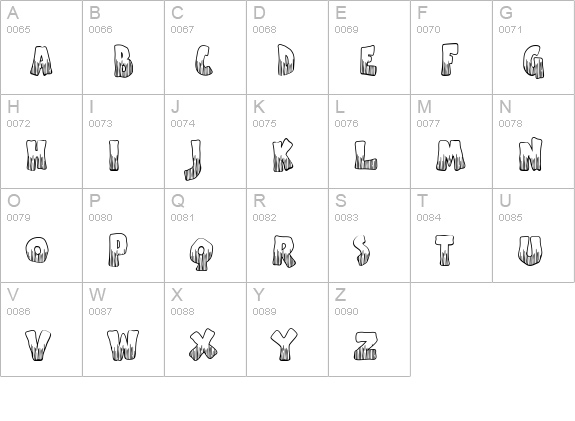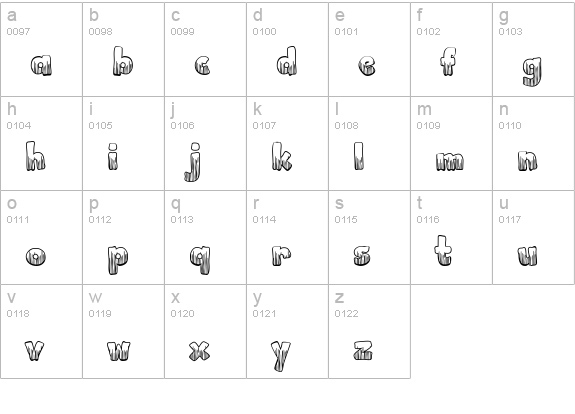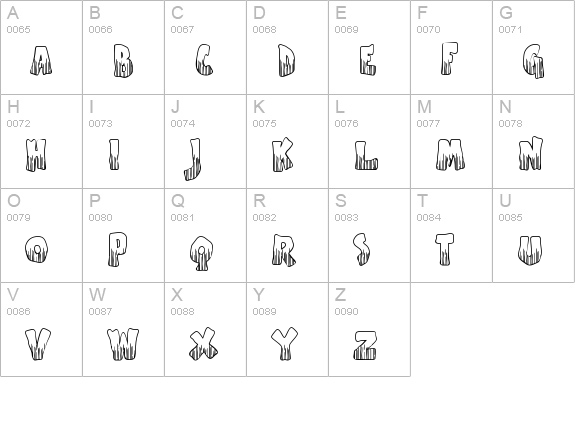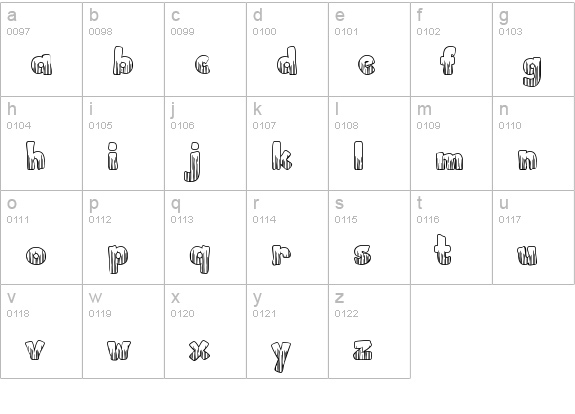
Apple Boy BTN Scratch font is a playful and whimsical typeface that adds a touch of fun to any design project. With its charming handwritten style and scratchy texture, this font is perfect for creating eye-catching headlines, posters, and greeting cards. The font is freely available to download at FontsMarket.com, making it accessible to all designers and creatives looking to add a unique touch to their work. Embrace the creative possibilities with Apple Boy BTN Scratch font and let your imagination run wild!